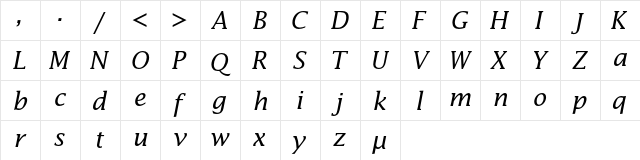
Lucida Math Italic
Design Context for Lucida Math Typeface
Lucida Math is a composed and adaptable typeface that performs quietly and consistently across a wide range of design contexts. The dynamic lean of this cut emphasises speed and emphasis in any layout.
Pro Tip: Use Lucida Math for emphasis, pull quotes, and subheadings where its slanted energy can add rhythm to the layout.